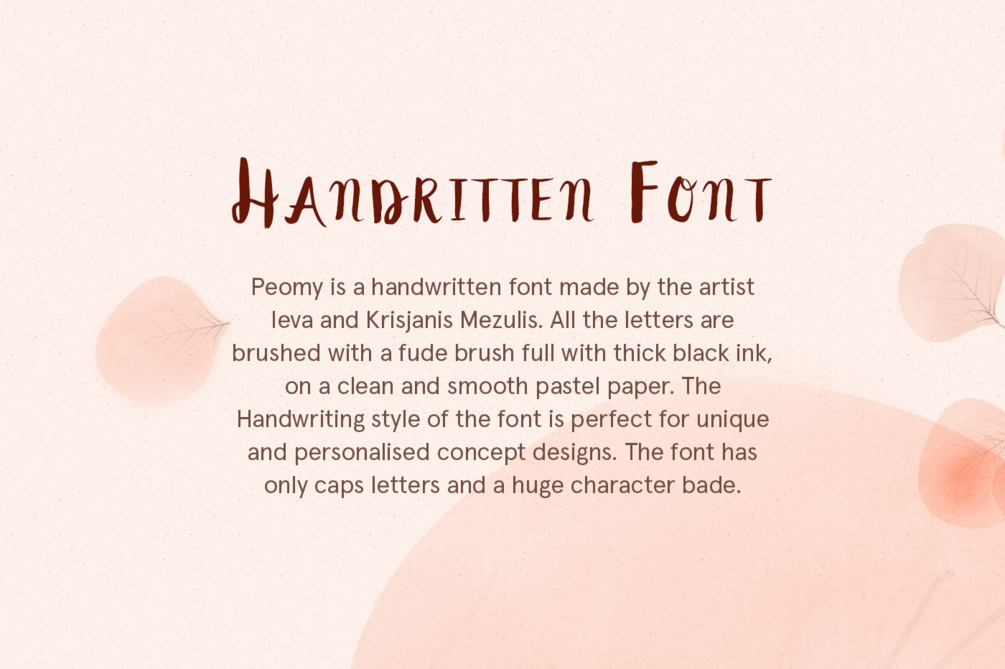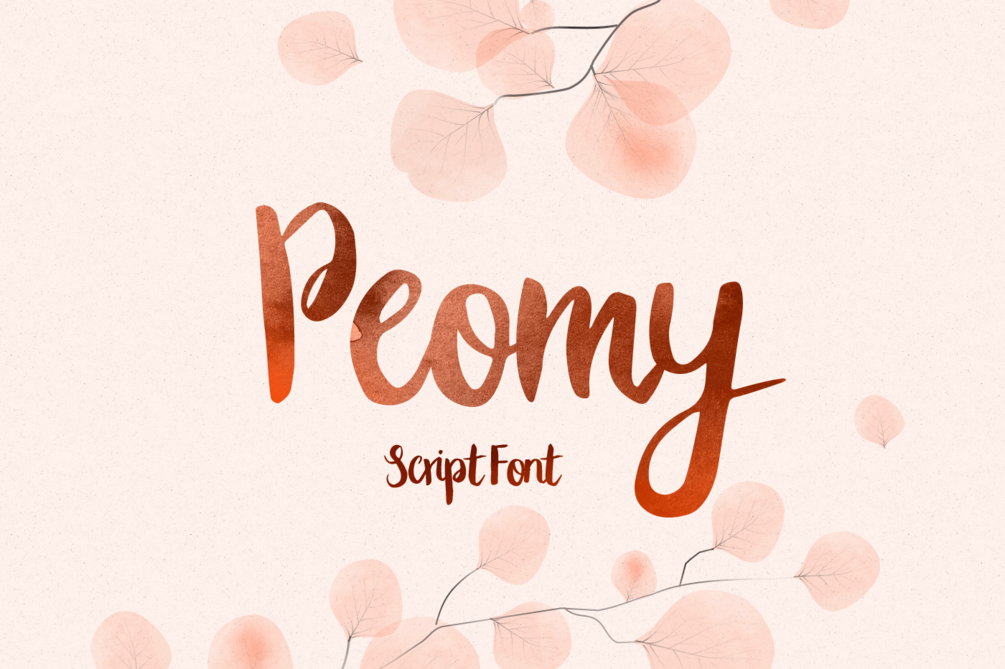
Peomy Free Script Font
Peomy Free Script Font is a handwritten free font made by the artist Ieva and Krisjanis Mezulis. All the letters are brushed with a fude brush full with thick black ink, on a clean and smooth pastel paper. The Handwriting style of the font is perfect for unique and personalised concept designs. The font has only caps letters and a huge character bade. 385 characters, all Caps letters.